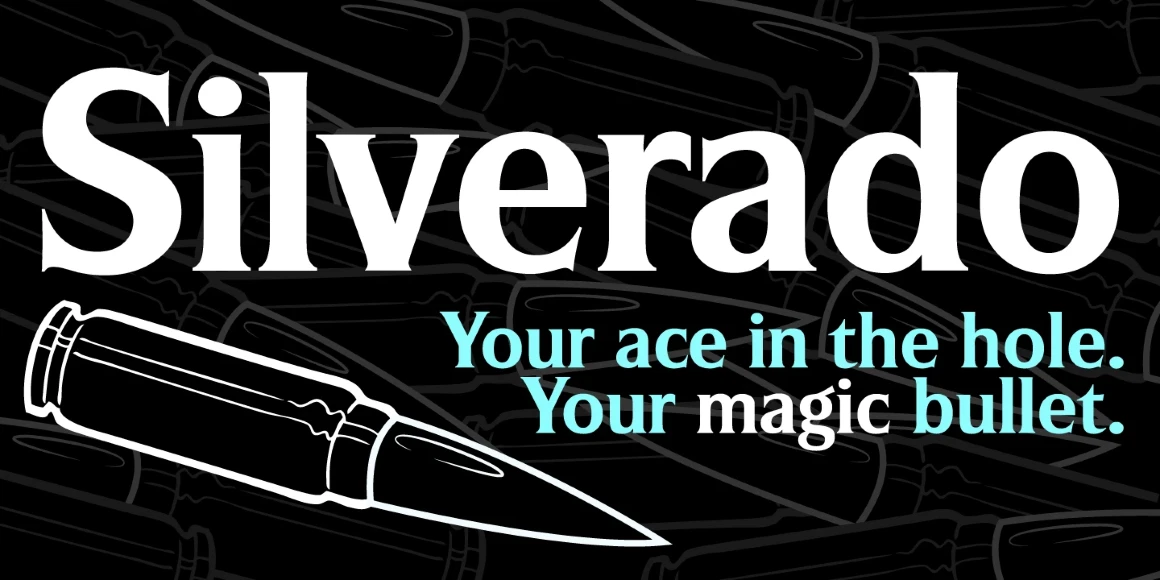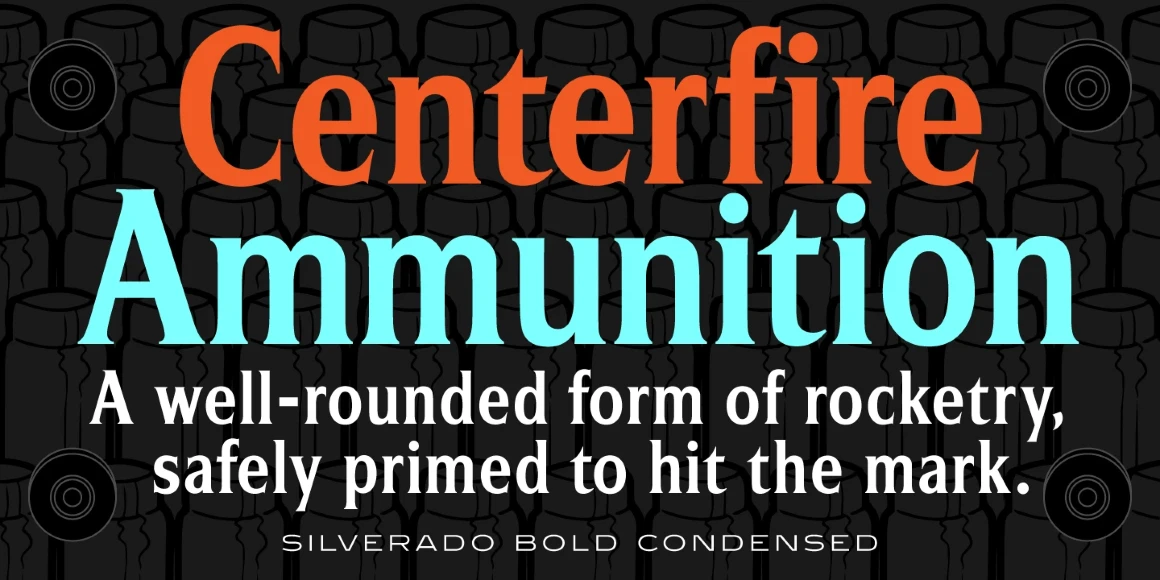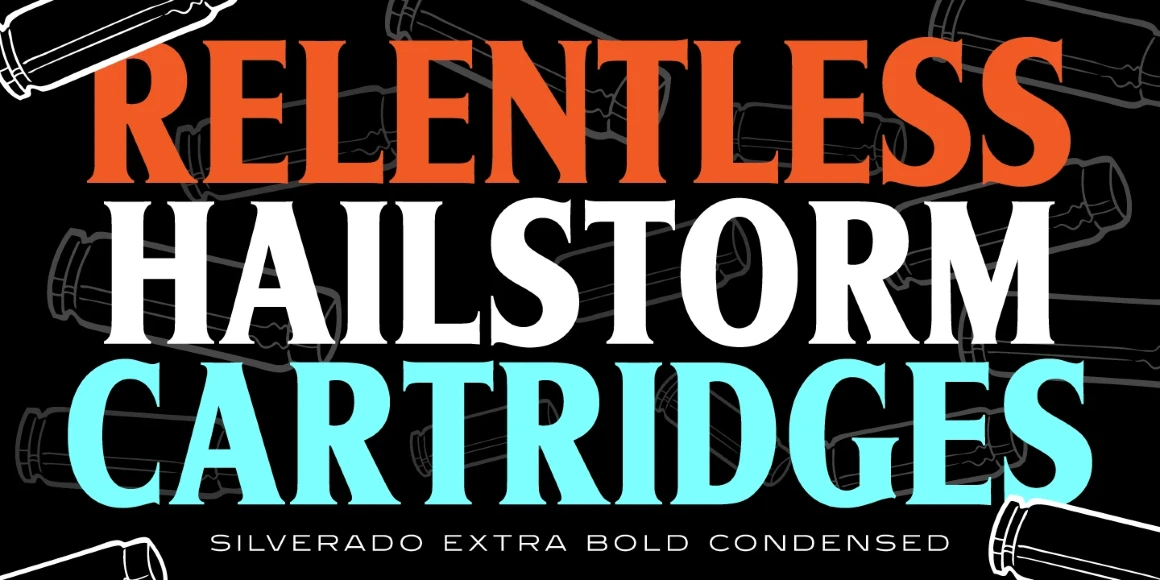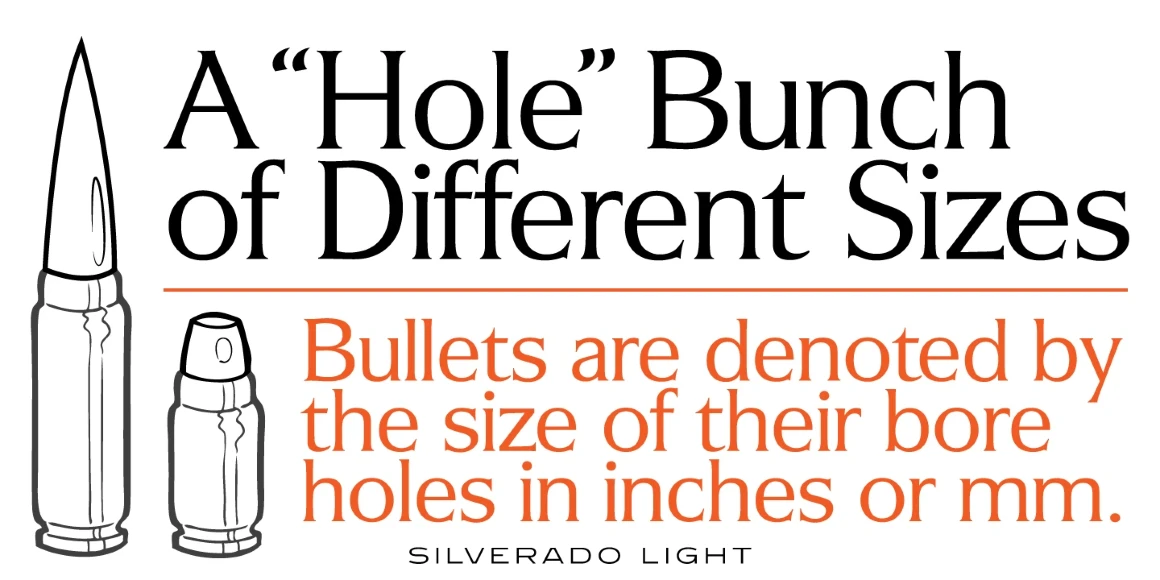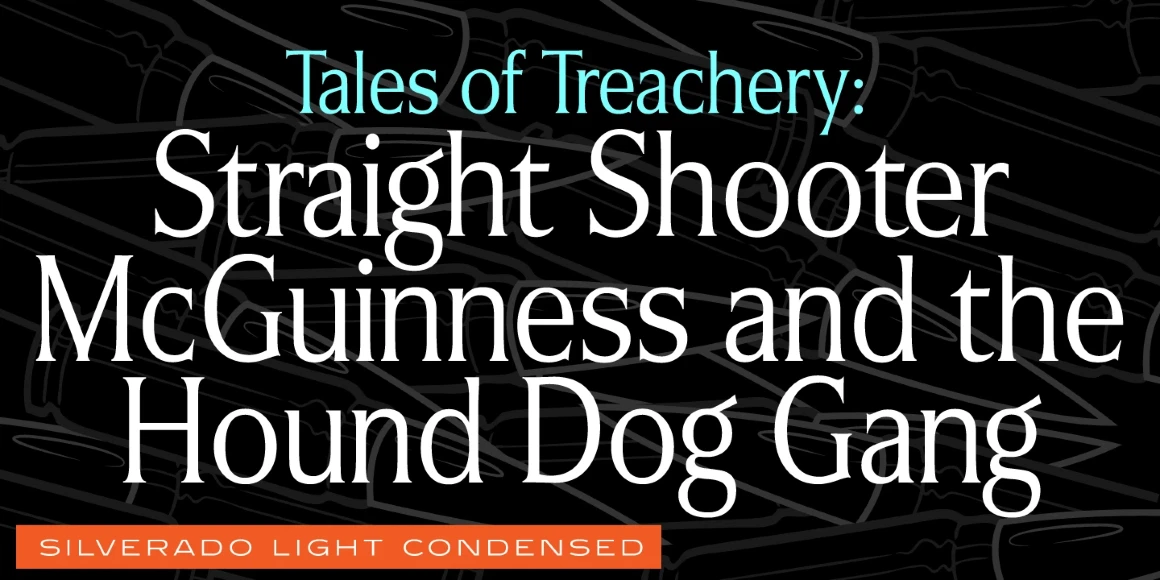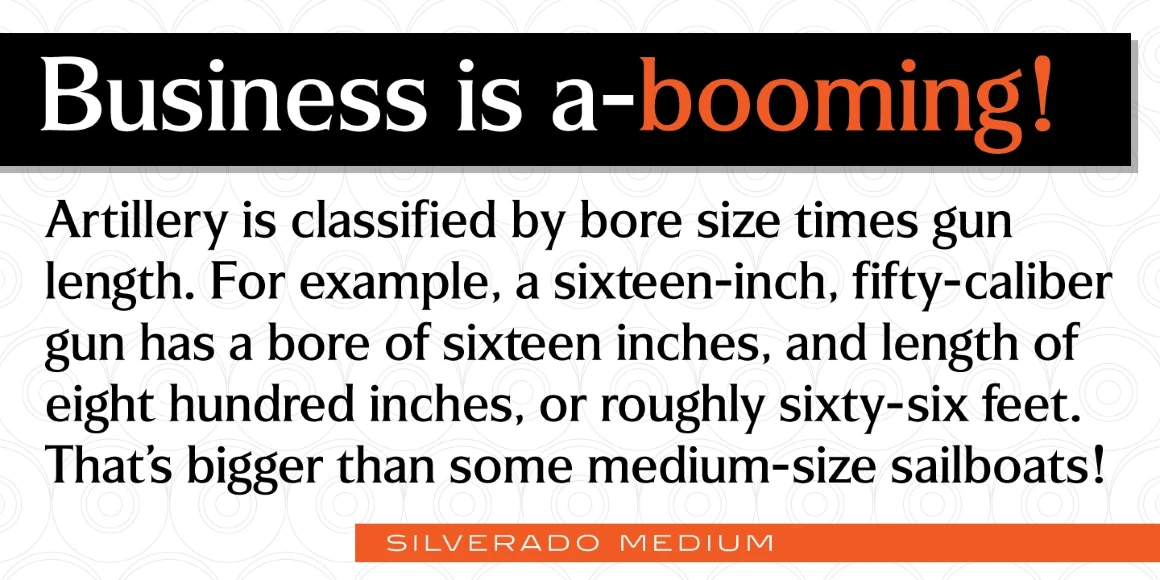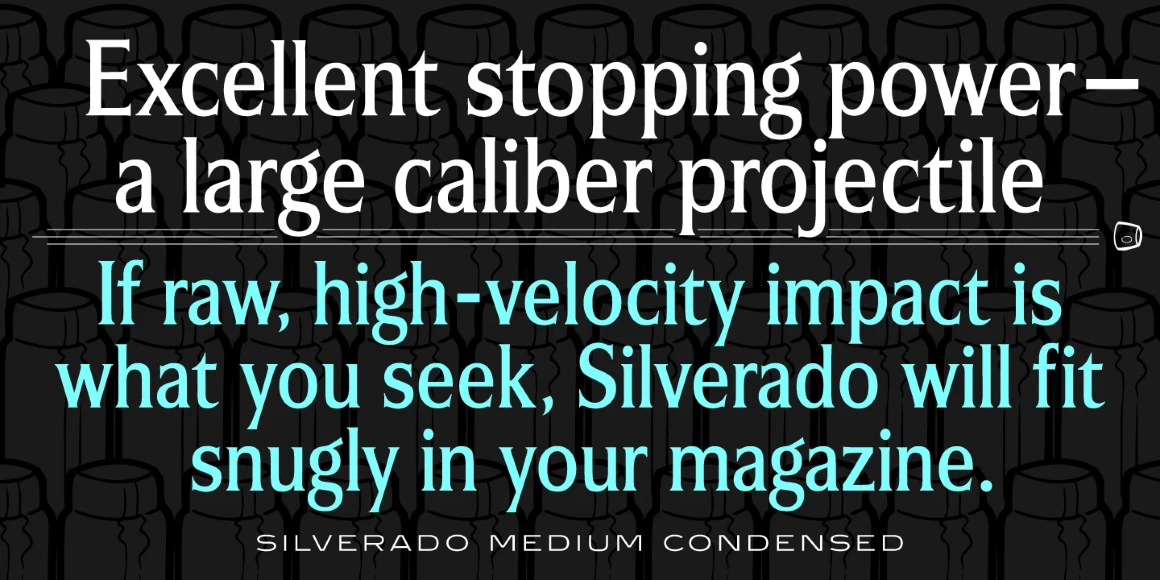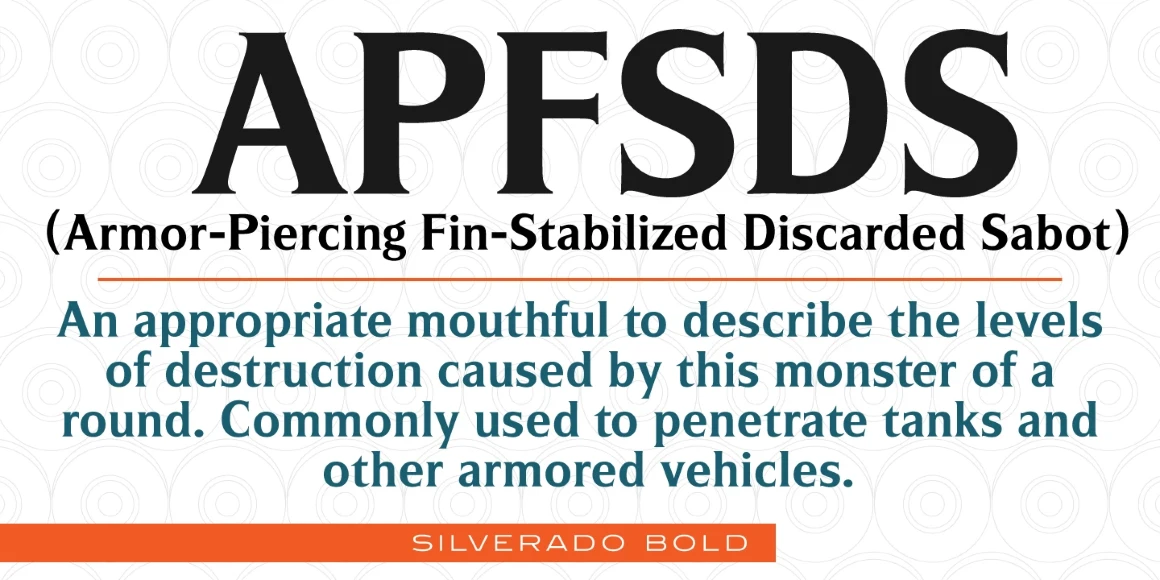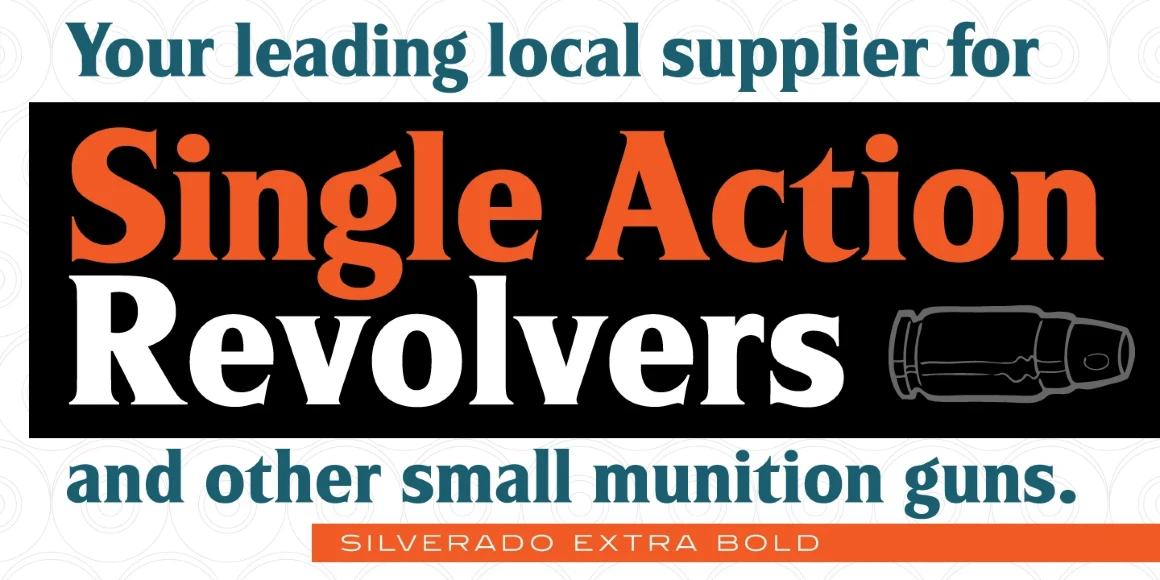
Silverado
Silverado Condensed Light
Silverado Condensed Medium
Silverado Condensed Bold
Silverado Condensed Extra Bold
Silverado Light
Silverado Medium
Silverado Bold
Silverado Extra Bold
Silverado is a serif font family, exclusively licensed from the Techni-Process (TP) Collection. In the 1960’s, Sam Ardell (TP) designed a typeface called ‘Eldorado.’ Steve Jackaman (ITF) redrew the typeface and produced it under its new name, ‘Silverado,’ in 1992. Silverado has an economic, formal, or conservative feel, and retains high legibility at display, subhead, and paragraph size.